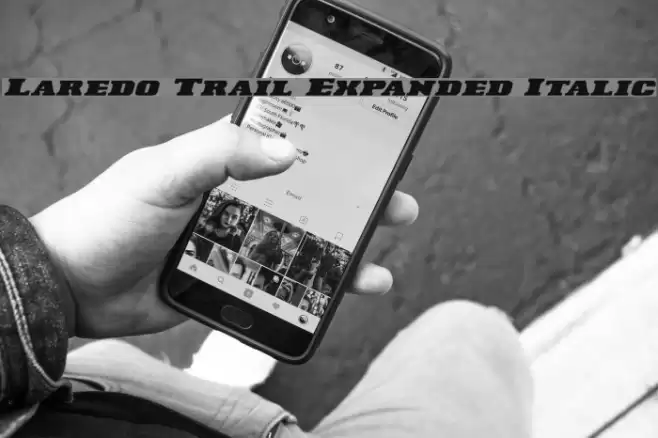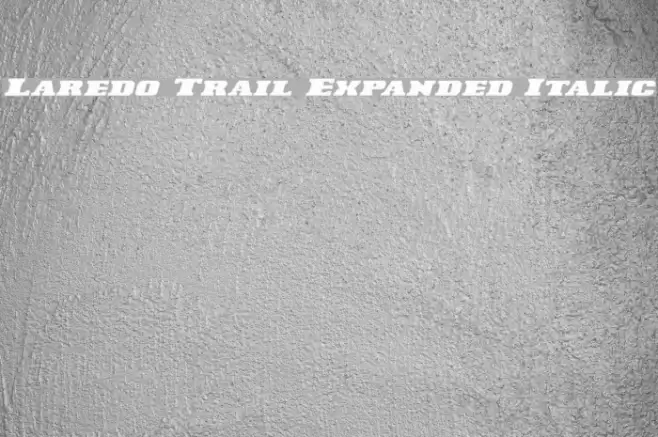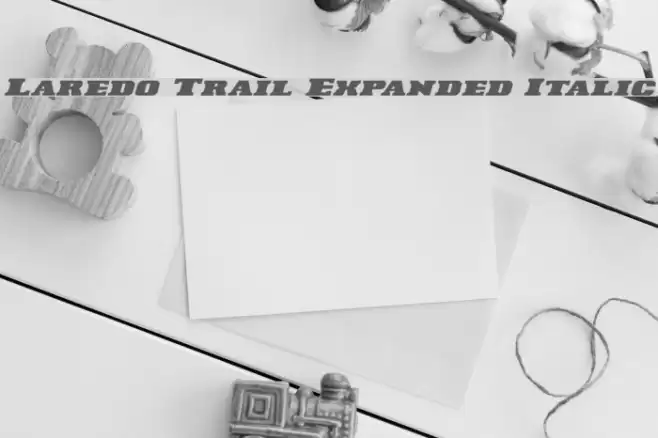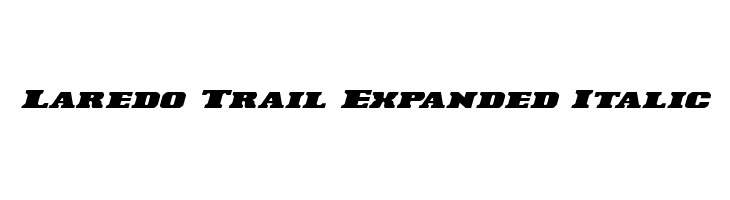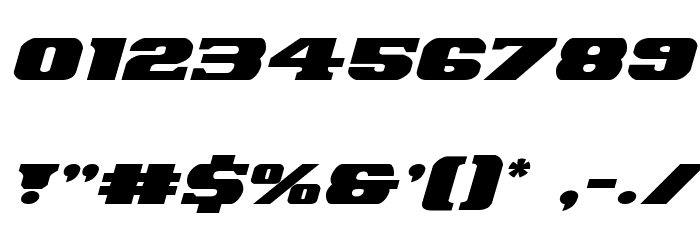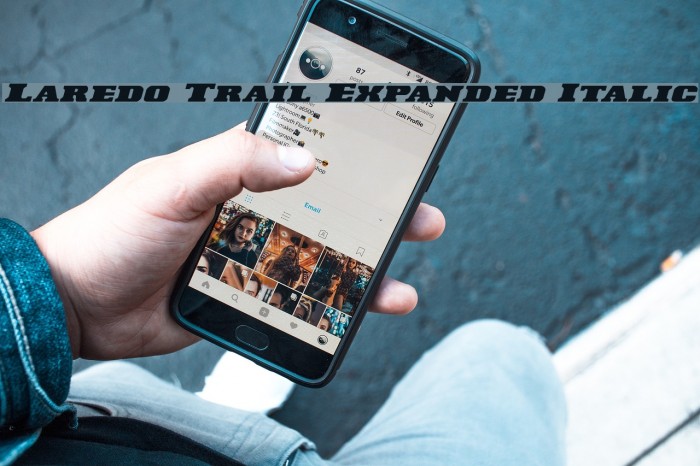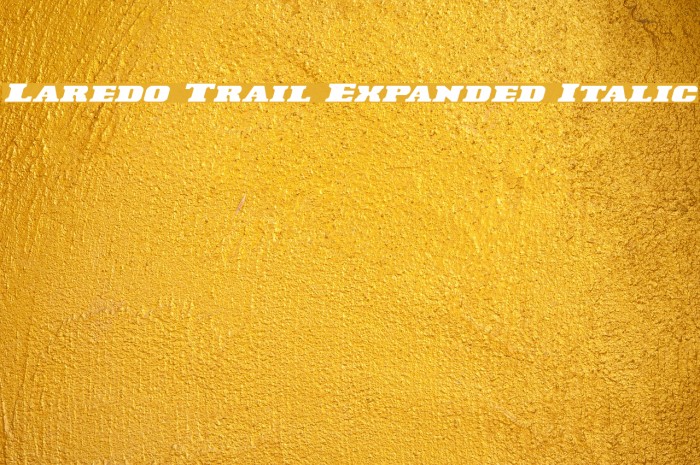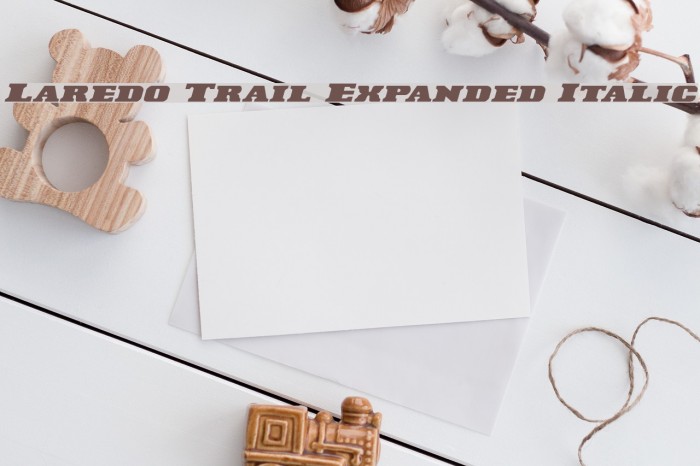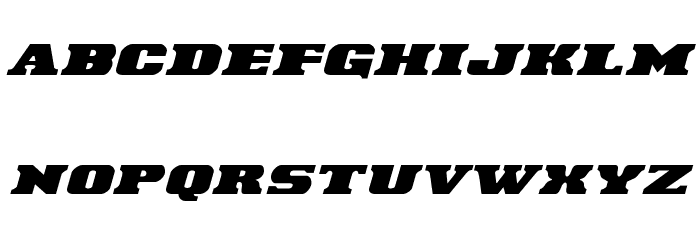
Laredo Trail Expanded Italic Font
Laredo Trail Expanded Italic Description
This font features a bold and dynamic style with an italic slant, giving it a sense of motion and energy. The characters are expanded, providing a wide and impactful presence. The strokes are thick and consistent, contributing to a strong visual weight. The design incorporates sharp angles and clean lines, enhancing its modern and assertive appearance. The spacing between characters is tight, which helps maintain a cohesive look across text. This font is particularly suited for attention-grabbing headlines and display purposes, where a bold statement is desired.
Bold, italic, and expanded font with a dynamic and modern style from Uncategorized fonts.
- Proposed Projects: Ideal for sports branding, action movie posters, dynamic logos, and bold advertising campaigns.
- Width: Expanded
- Character Spacing: Tight